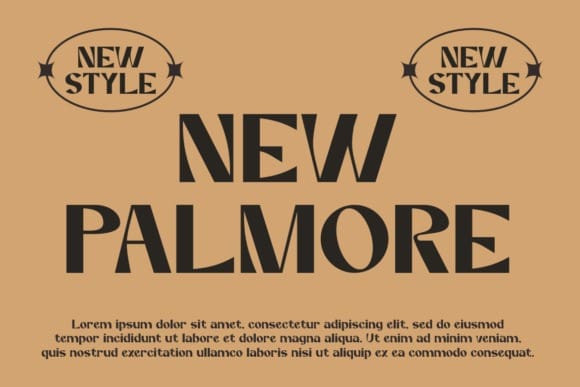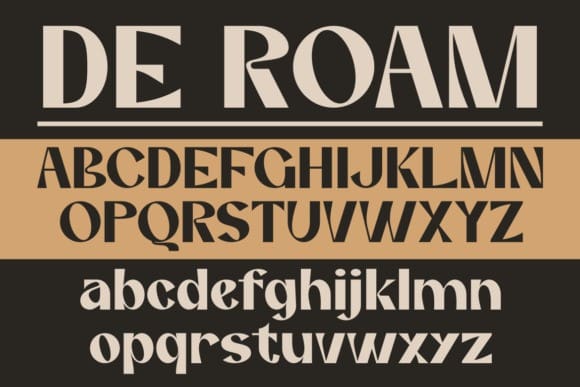
Rakiby Display Font
Rakiby Display Font is a trendy and modern display font designed to make your text stand out. With clean lines and a contemporary style, it adds a sleek and stylish touch to any project. Whether you’re creating a bold title, logo, or any display text, Rakiby Display brings a fresh and modern vibe. Elevate your design with this versatile font that effortlessly combines simplicity and sophistication, making it a great choice for a wide range of applications.